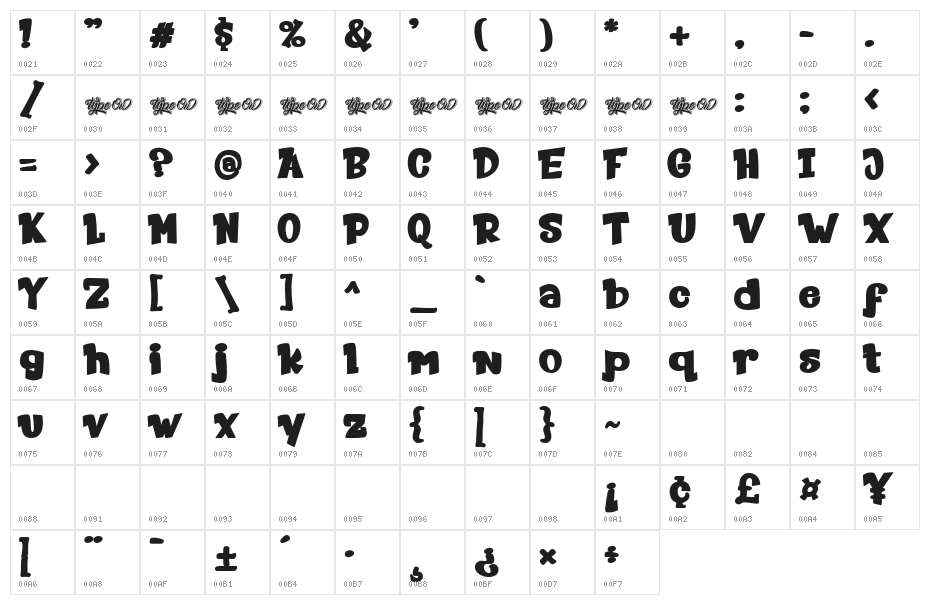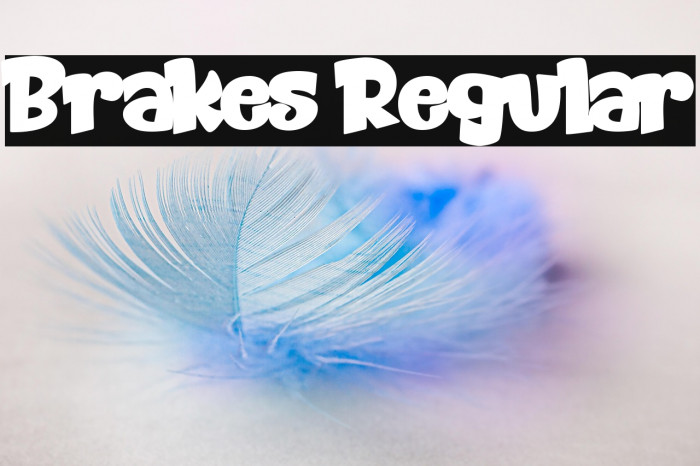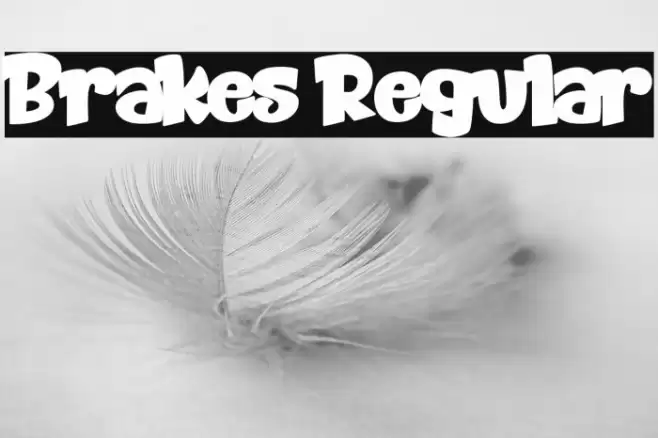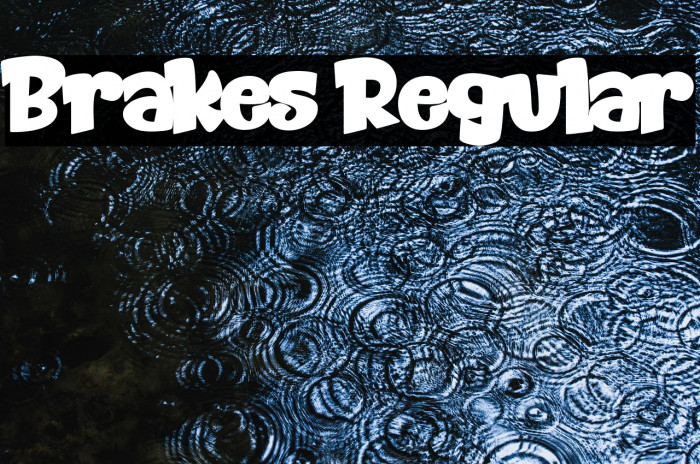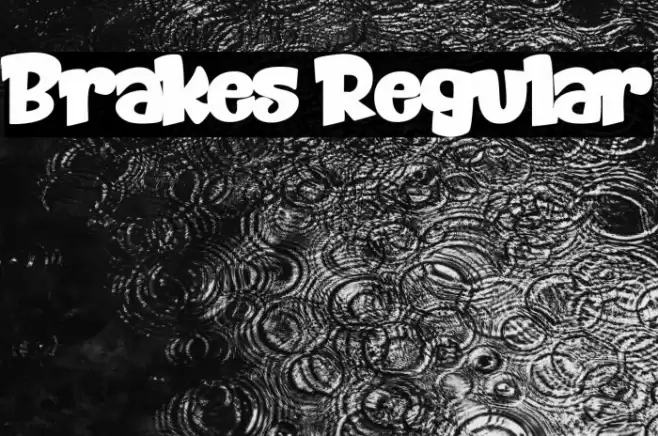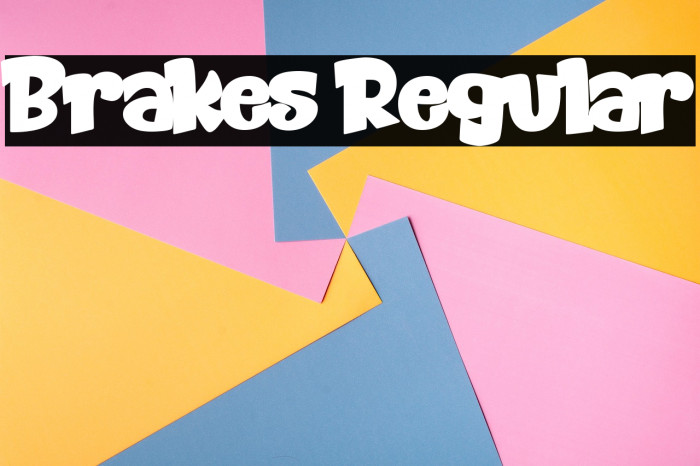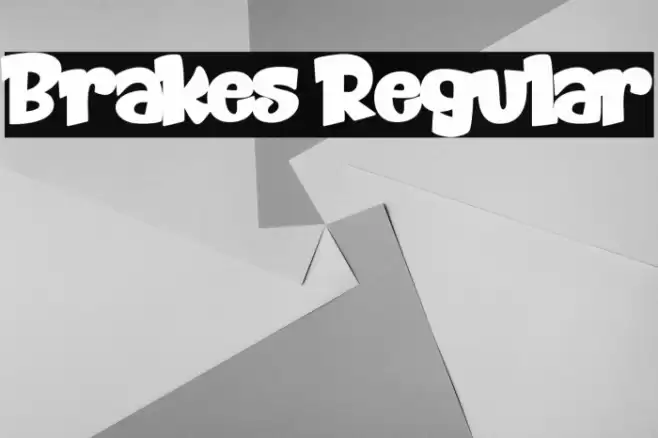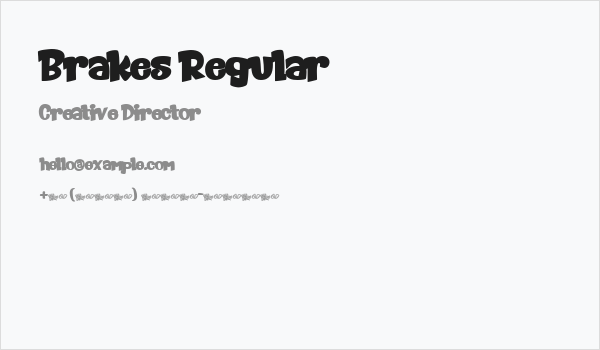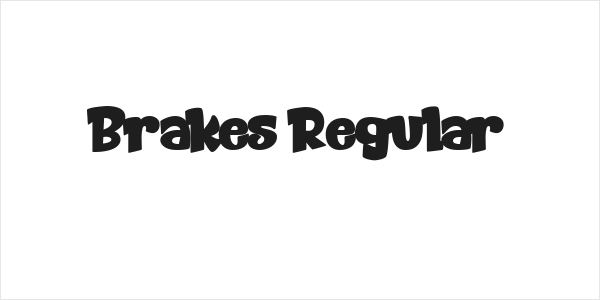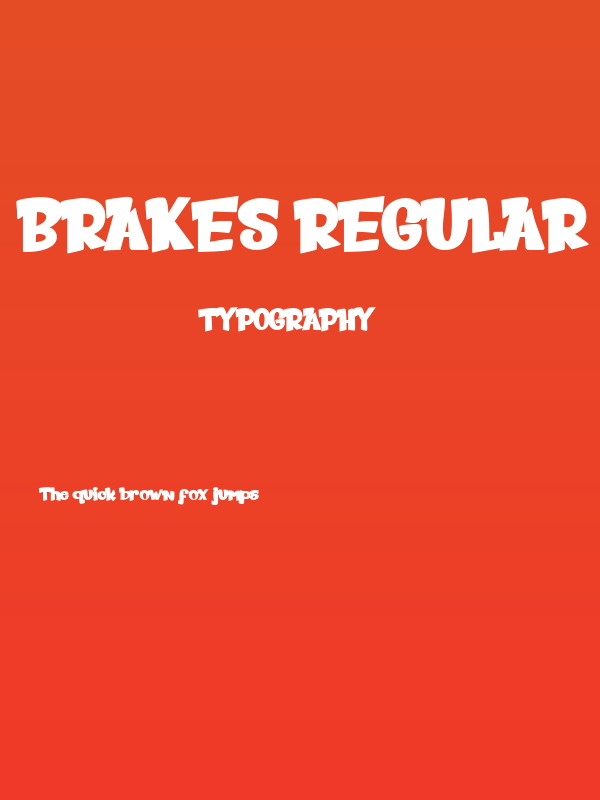
Brakes Regular Font
Brakes Regular Description
This font features a bold and playful design with a distinctly retro vibe. The characters are heavily stylized with exaggerated curves and thick strokes, creating a sense of movement and energy. The uppercase and lowercase letters maintain a consistent style, with rounded edges and a slightly condensed form. The numbers and special characters follow the same playful aesthetic, making the font suitable for eye-catching designs. The overall appearance is both fun and dynamic, perfect for projects that require a touch of whimsy and boldness.
| Overall Style | Retro, Playful |
| Proposed Projects | Ideal for posters, logos, children's books, and any design needing a fun, energetic touch. |